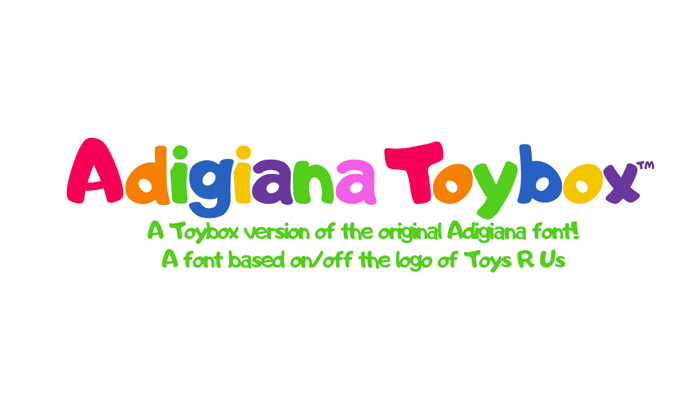
Adigiana UI Font
Adigiana UI is now Adigiana Toybox, which is based on/off of the Toys R Us logo. This font is an edit of Toybox by Chris Brown Visual Design, seeming to have the missing letters C, M, S, W and 5. So the creator with 76 fonts (now) has added C, M, S, W and 5 2 years ago and added lowercases, and added more characters.